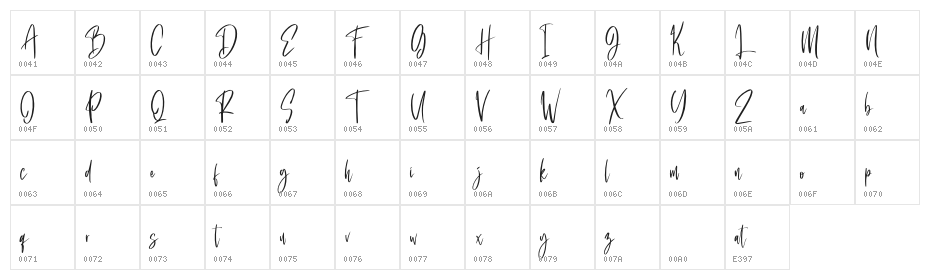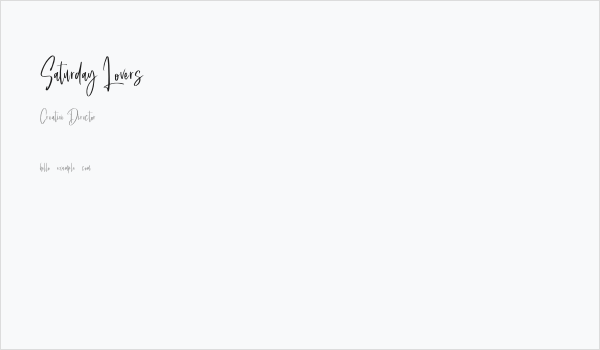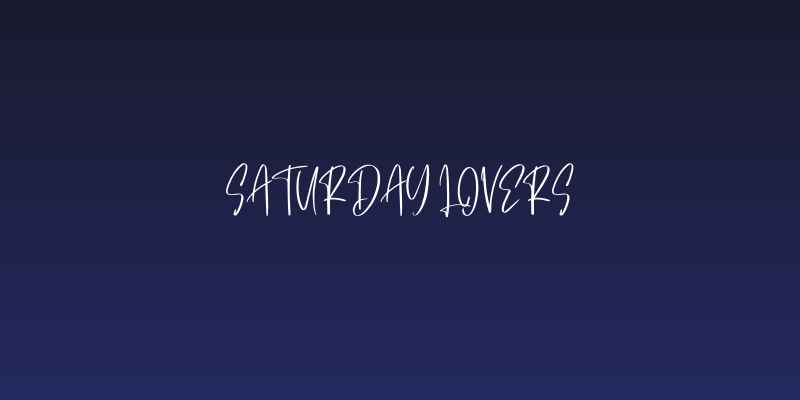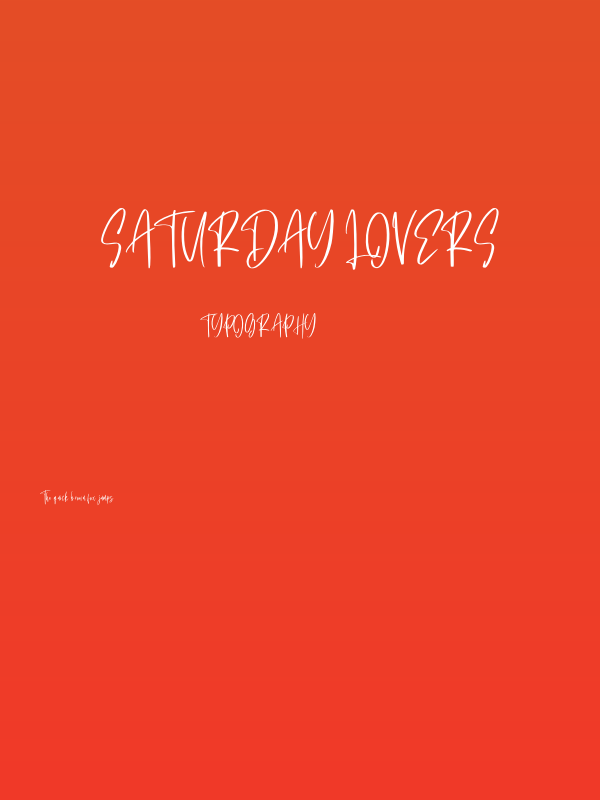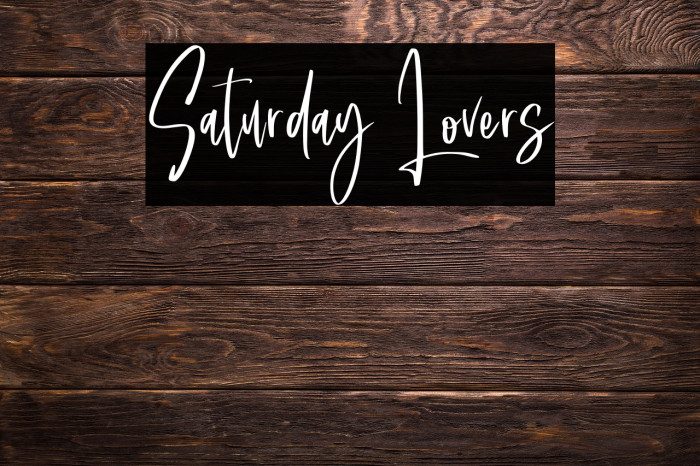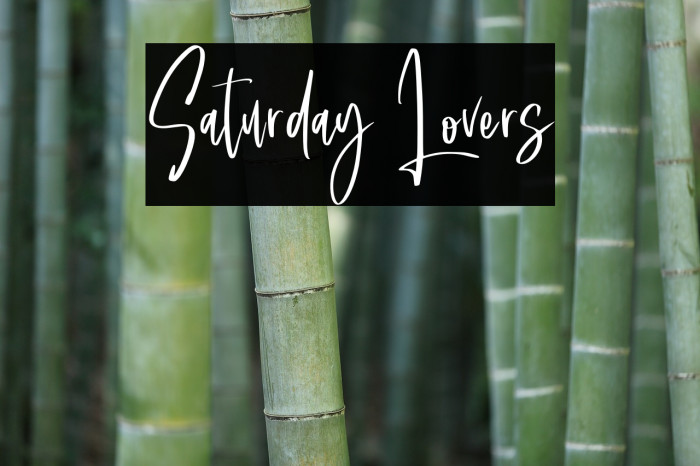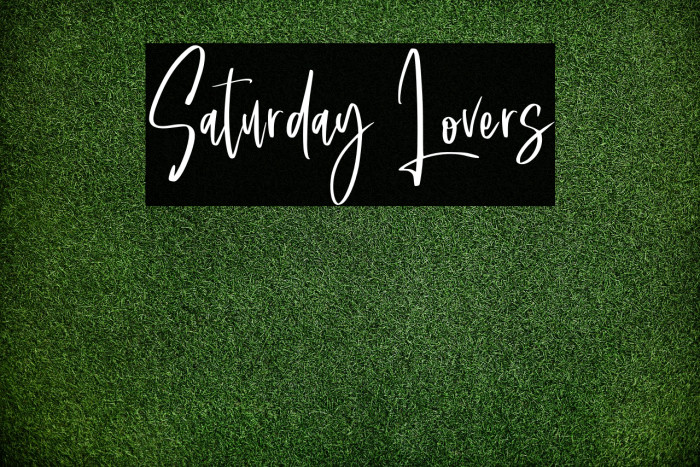
Saturday Lovers Font
Saturday Lovers Description
This font features an elegant, flowing script style that mimics the fluidity of natural handwriting. The uppercase letters are bold and sweeping, with exaggerated loops and curves that give a sense of movement and grace. The lowercase letters maintain a consistent style, with a slightly more restrained flourish, making them highly readable while still retaining a decorative flair. The numbers and special characters are designed to match the overall aesthetic, ensuring a cohesive look across all text elements. This font is perfect for projects that require a personal touch, such as invitations, greeting cards, or branding materials that aim to convey elegance and sophistication.
| Proposed Projects | Ideal for wedding invitations, elegant branding, personal stationery, and artistic posters. |